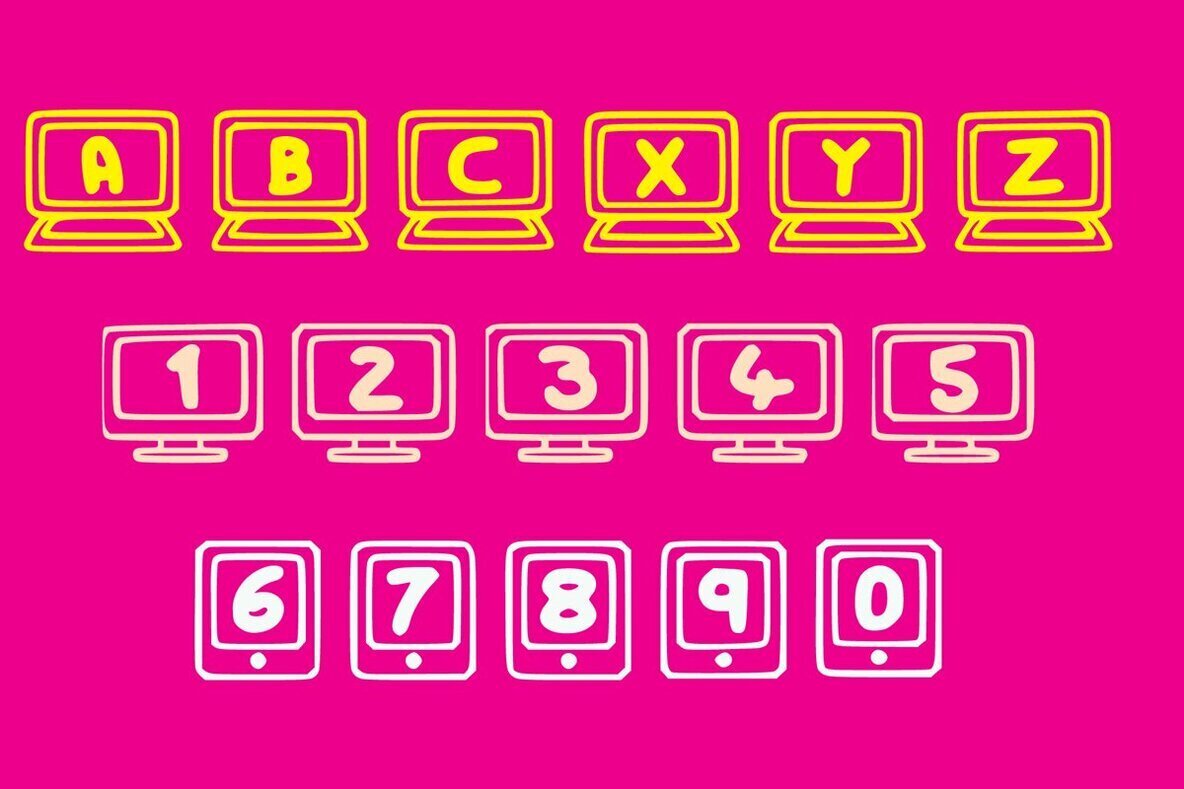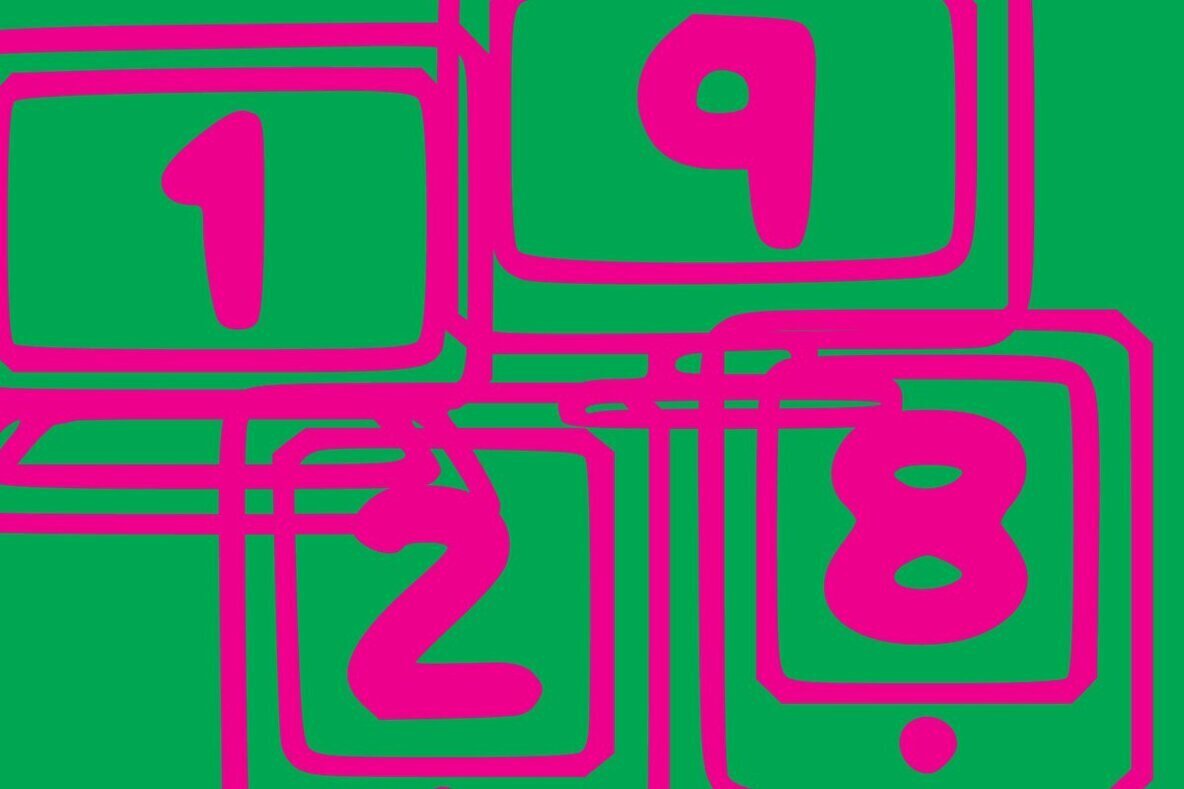
Fun Devices Font
Fun Devices Family and Bonus (3 fonts)
Fun Devices Laptop
Fun Devices PC
Fun Devices Tablet
Fun Devices is a fun decorative font, featuring a range of devices, tablet, desktop and laptop to choose from. No matter the topic, this font will be an incredible asset to your fonts’ library, as it has the potential to elevate any creation.
3 Weights / Devices: LAPTOP, DESKTOP AND MOBILE set with Play Font in Bold